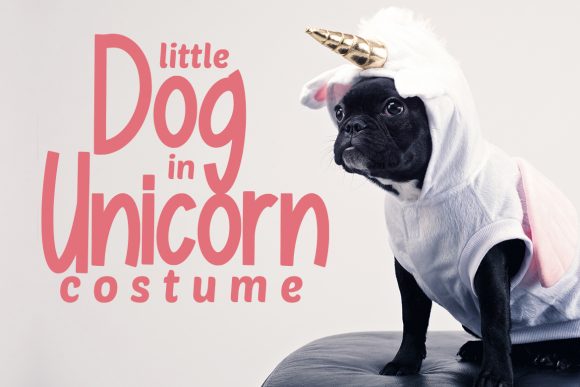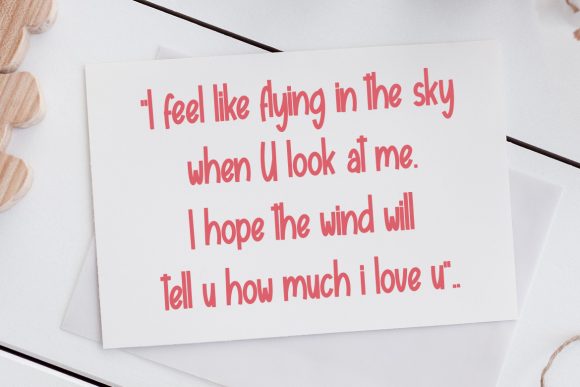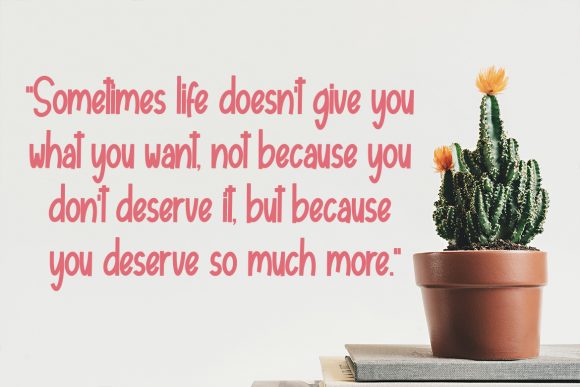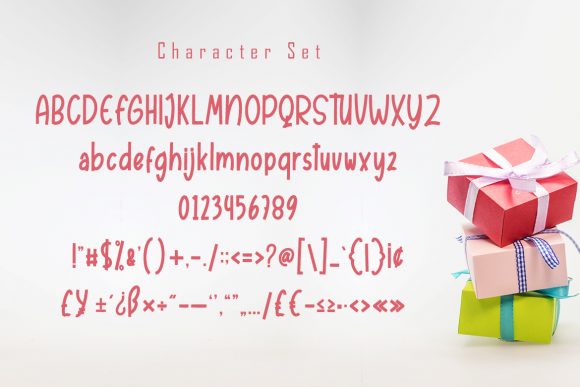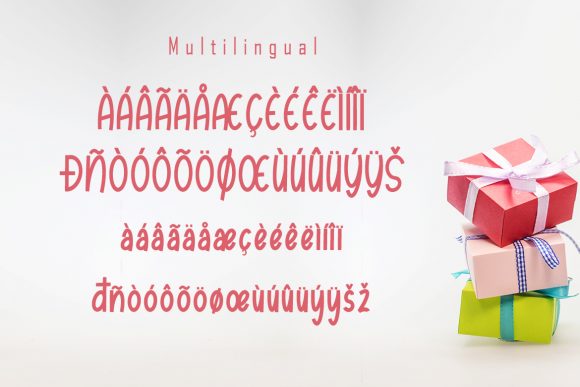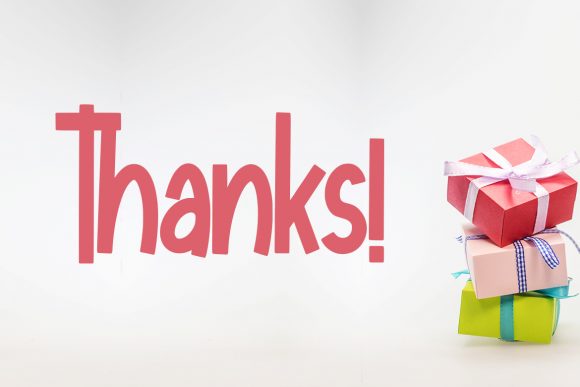
Introducing Chanelle Font: The Modern and Playful Display Font for Creative Projects
Are you a designer, crafter, or digital artist looking for a font that can add a touch of modern playfulness to your projects? Look no further than Chanelle Font! This versatile and stylish display font is perfect for a wide range of creative applications, from crafting and digital designing to presentations and greeting cards making.
What Makes Chanelle Font So Special?
Chanelle Font is a modern and playful display font that is designed to make your projects stand out. Its unique and stylish lettering is perfect for adding a personal touch to your designs, whether you’re creating a logo, a brochure, or a social media graphic. The font’s clean and elegant lines make it easy to read, while its playful curves add a touch of whimsy and fun.
Perfect for Crafting and Digital Designing
Chanelle Font is a crafter’s dream come true! Its playful and modern design makes it perfect for a wide range of crafting projects, from handmade cards and gift tags to DIY home decor and scrapbooking. The font’s digital versatility also makes it ideal for digital designers, who can use it to create stunning graphics, logos, and branding materials.
Whether you’re creating a digital invitation, a social media graphic, or a blog post, Chanelle Font is the perfect choice. Its modern and stylish design will add a touch of sophistication and elegance to your project, while its playful curves will keep your audience engaged and entertained.
Great for Presentations and Greeting Cards
Chanelle Font is also perfect for presentations and greeting cards making. Its clear and easy-to-read design makes it ideal for creating professional-looking presentations, while its playful curves add a touch of personality and whimsy to your greeting cards.
Imagine creating a stunning presentation with Chanelle Font as your headline font. Your audience will be impressed by the modern and stylish design, and your message will be conveyed with clarity and impact. Similarly, your greeting cards will stand out from the crowd with Chanelle Font’s unique and playful design.
Key Features of Chanelle Font
- Modern and playful display font
- Perfect for crafting, digital designing, presentations, and greeting cards making
- Clean and elegant lines for easy readability
- Playful curves add a touch of whimsy and fun
- Digital versatility for use in a wide range of creative projects
In conclusion, Chanelle Font is a modern and playful display font that is perfect for designers, crafters, and digital artists. Its unique and stylish lettering makes it ideal for a wide range of creative projects, from crafting and digital designing to presentations and greeting cards making. With its clean and elegant lines, playful curves, and digital versatility, Chanelle Font is the perfect choice for anyone looking to add a touch of modern playfulness to their projects.